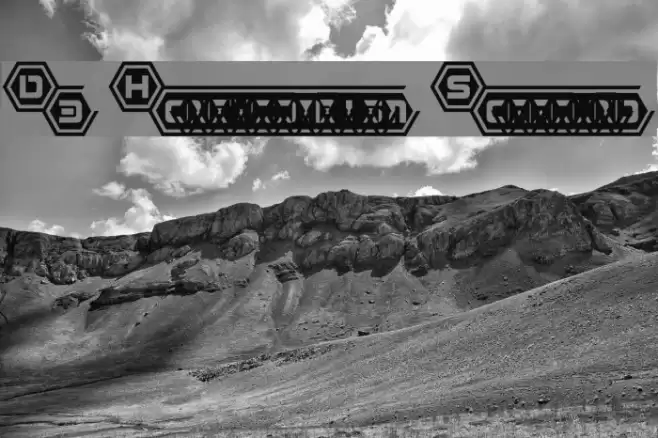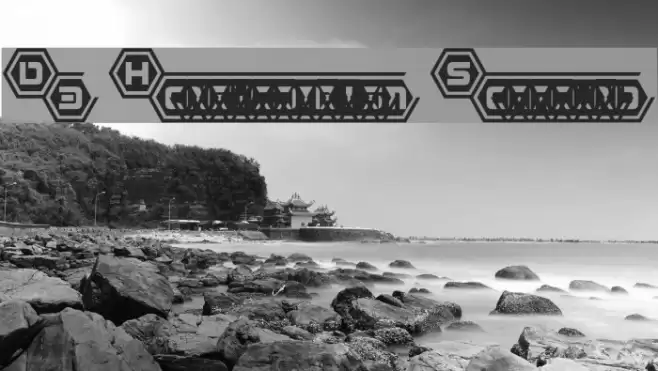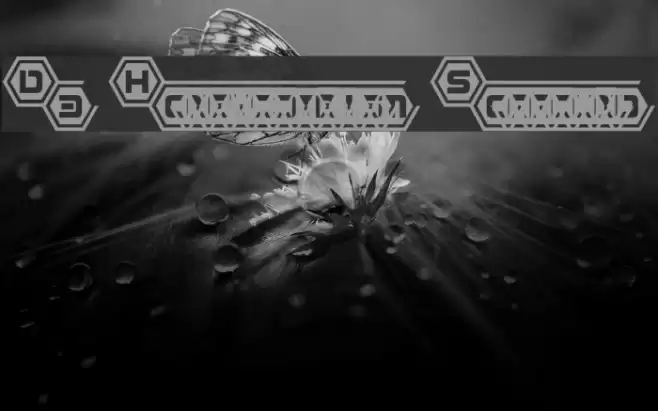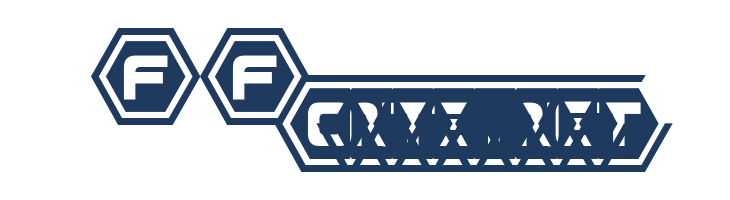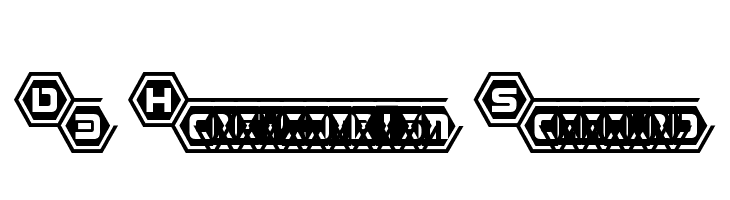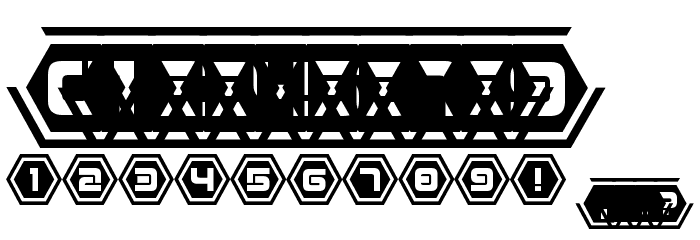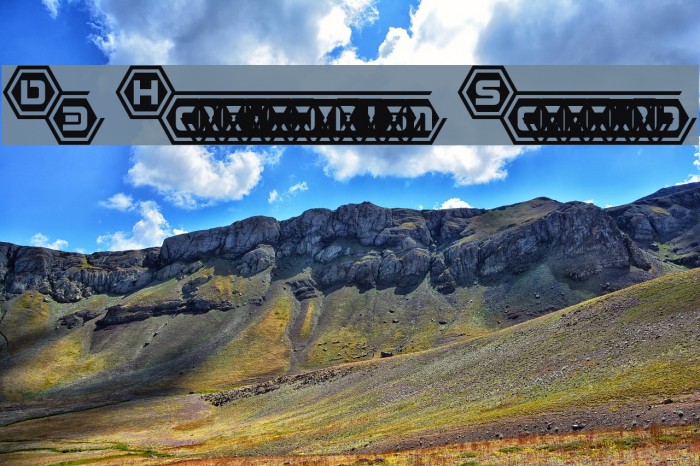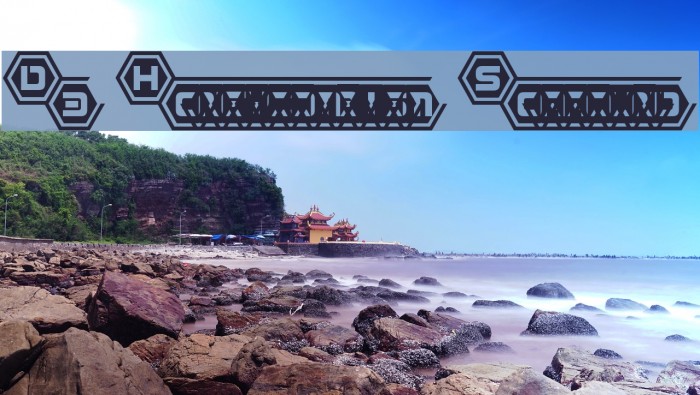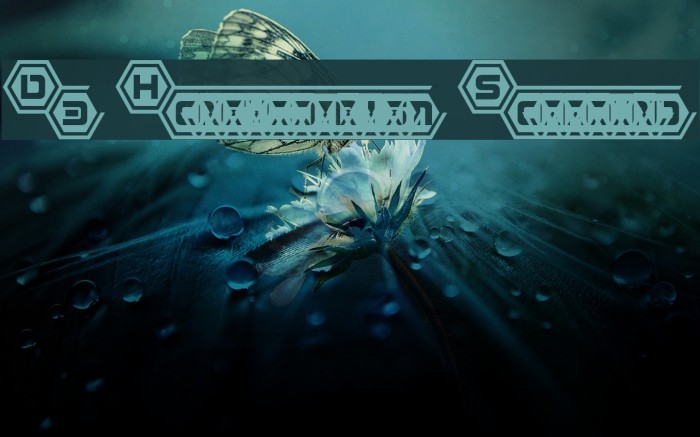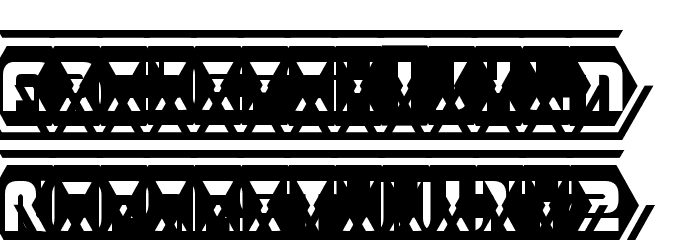
D3 Honeycombism Sorround Font
D3 Honeycombism Sorround Description
This font features a unique hexagonal design, where each character is enclosed within a hexagon. The style is bold and geometric, with a futuristic and industrial feel. The uppercase and lowercase letters, as well as numbers and special characters, are all consistent in their hexagonal framing, creating a cohesive and striking appearance. The bold lines and angular shapes give it a strong presence, making it suitable for attention-grabbing designs. The font's distinct style is ideal for projects that require a modern and edgy look.
A bold, hexagon-framed font with a futuristic and industrial style from Images & Symbols fonts.
- Proposed Projects: Ideal for sci-fi themed designs, technology branding, video game titles, and futuristic posters.
- Overall Style: Futuristic, Industrial